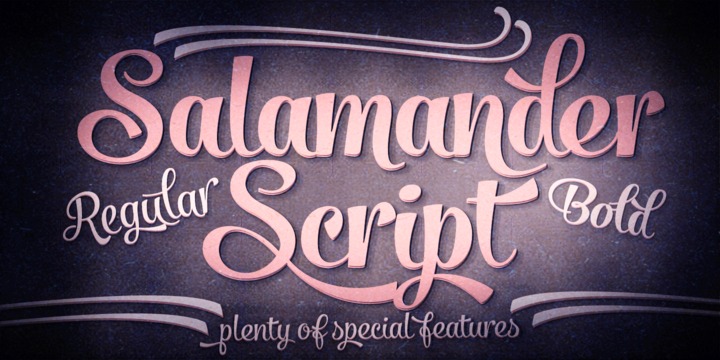
Salamander is created by Emil Karl Bertell and widely celebrated as a playful and agile script family. It is available in 2 weights and beautiful matching ornament sets. All you require doing is click on any of the following alternates in Open type savvy application to enjoy flamboyant alternate characters:
- Swash
- Contextual
- Stylistic
Later, the typeface can be combined with amazing Salamander ornaments to add precision to your designs.